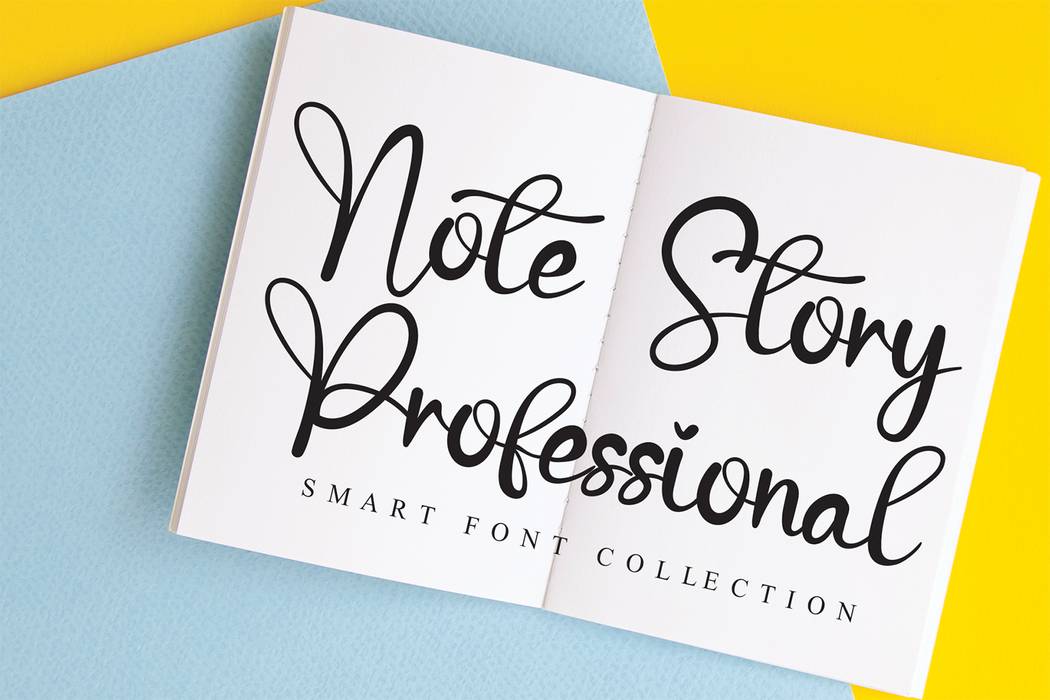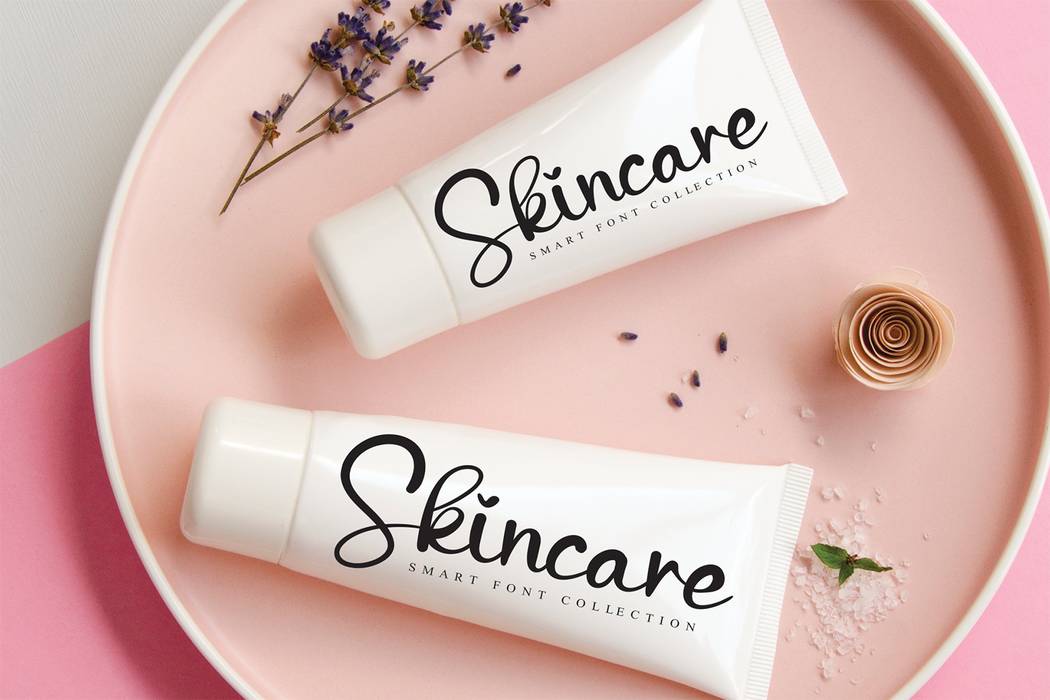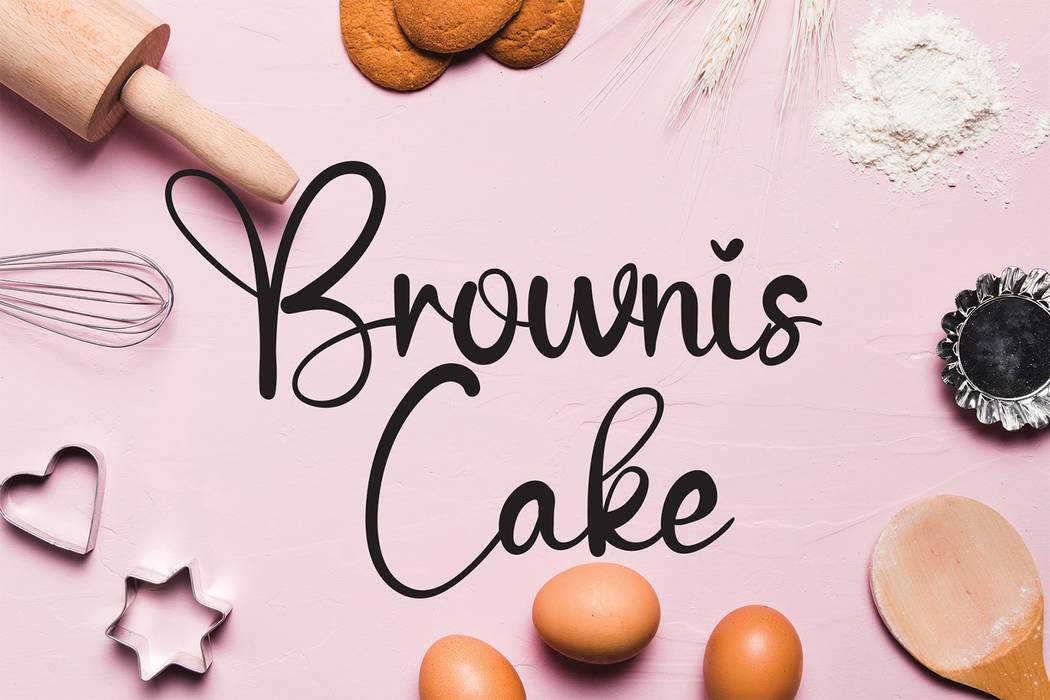
Hello Enjoyment is a playful and elegant script font with a light weight and airy feel, featuring flowing, decorative strokes and charming loops. Its unique, hand-lettered style with double-story lowercase letters and whimsical accents makes it perfect for creative branding, invitations, and expressive headlines where a personal, joyful touch is desired. This font brings a lively and friendly personality to designs, ideal for projects needing a warm, inviting atmosphere.
Hello Enjoyment Font
About Hello Enjoyment Font